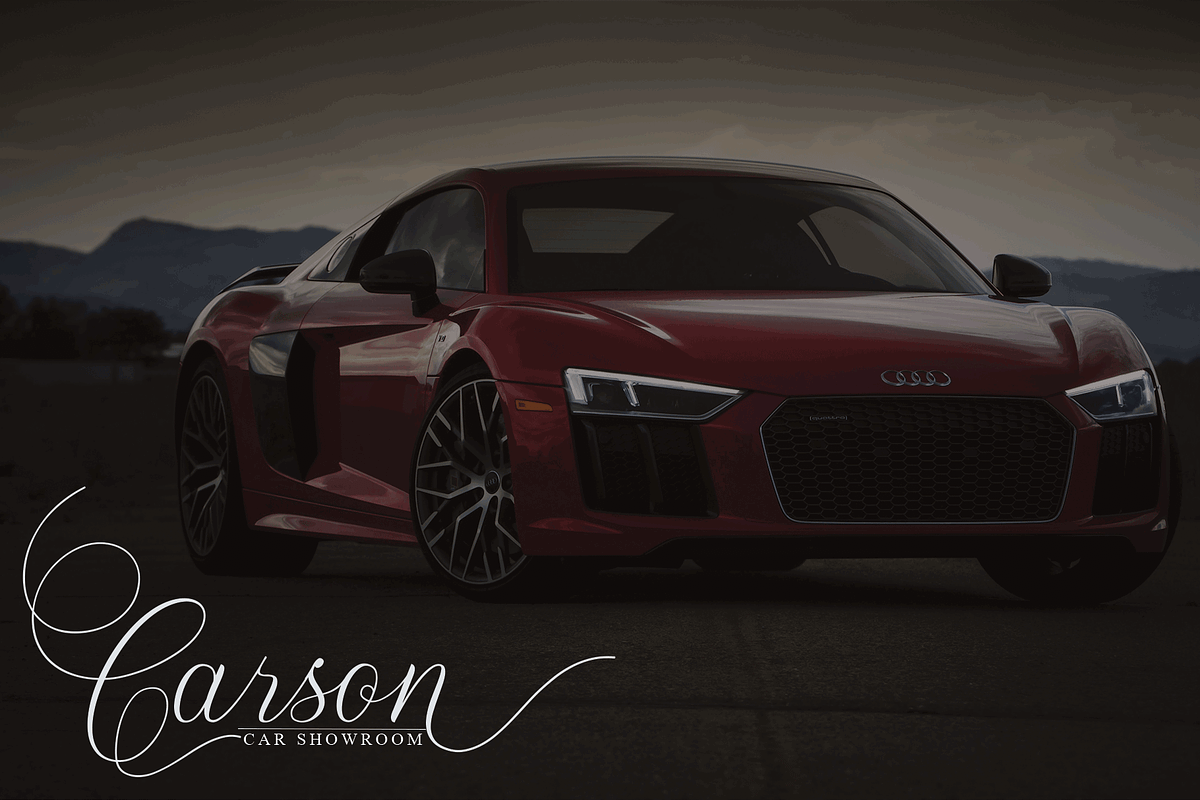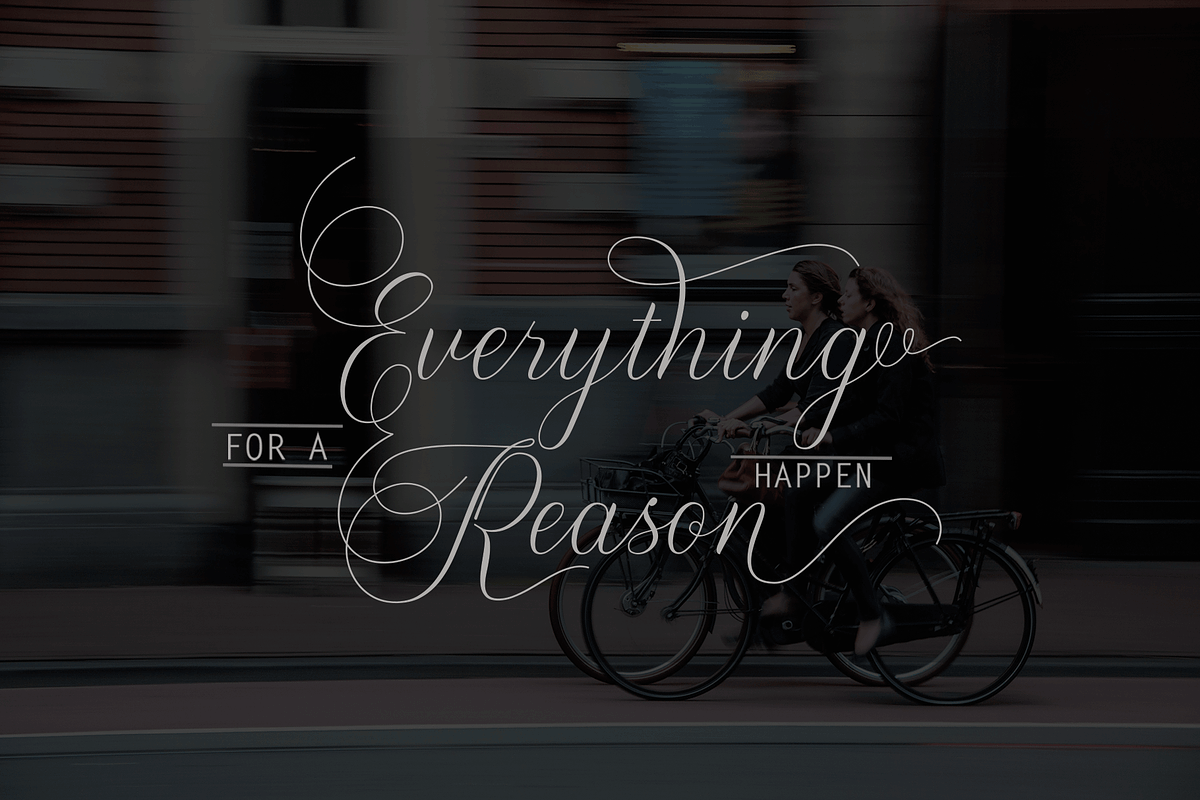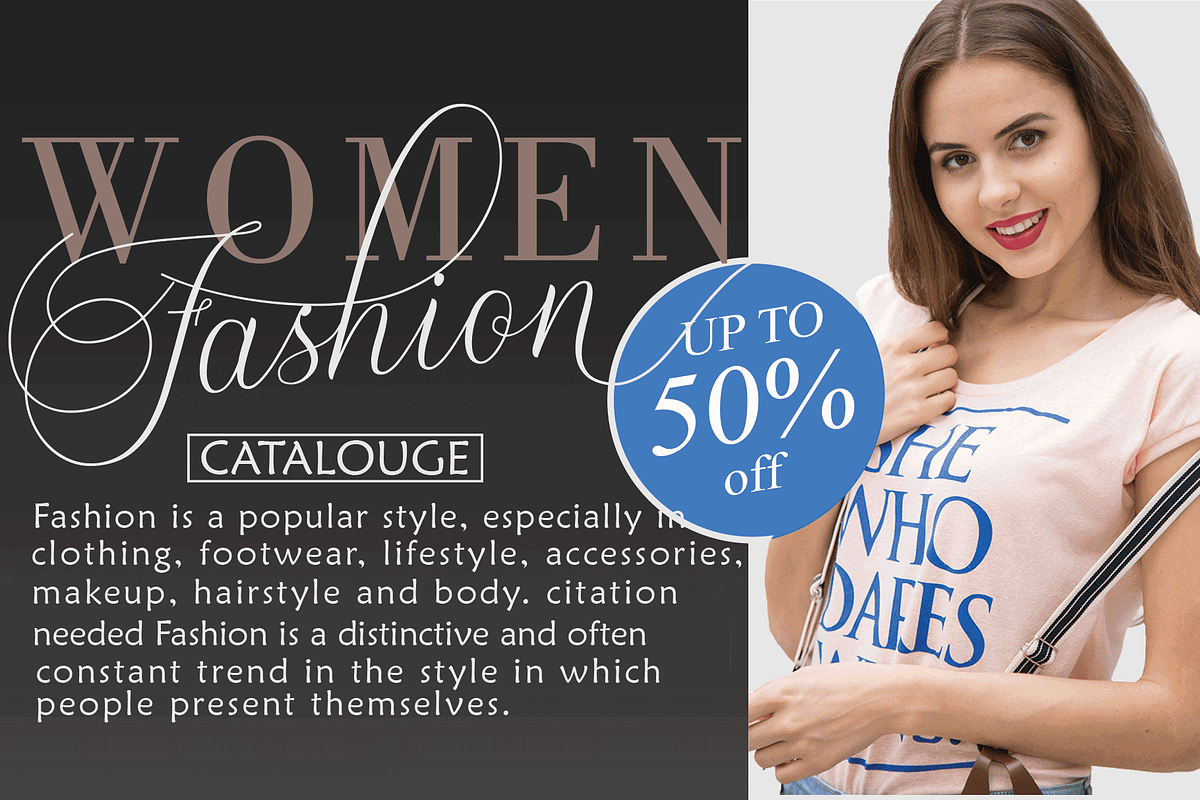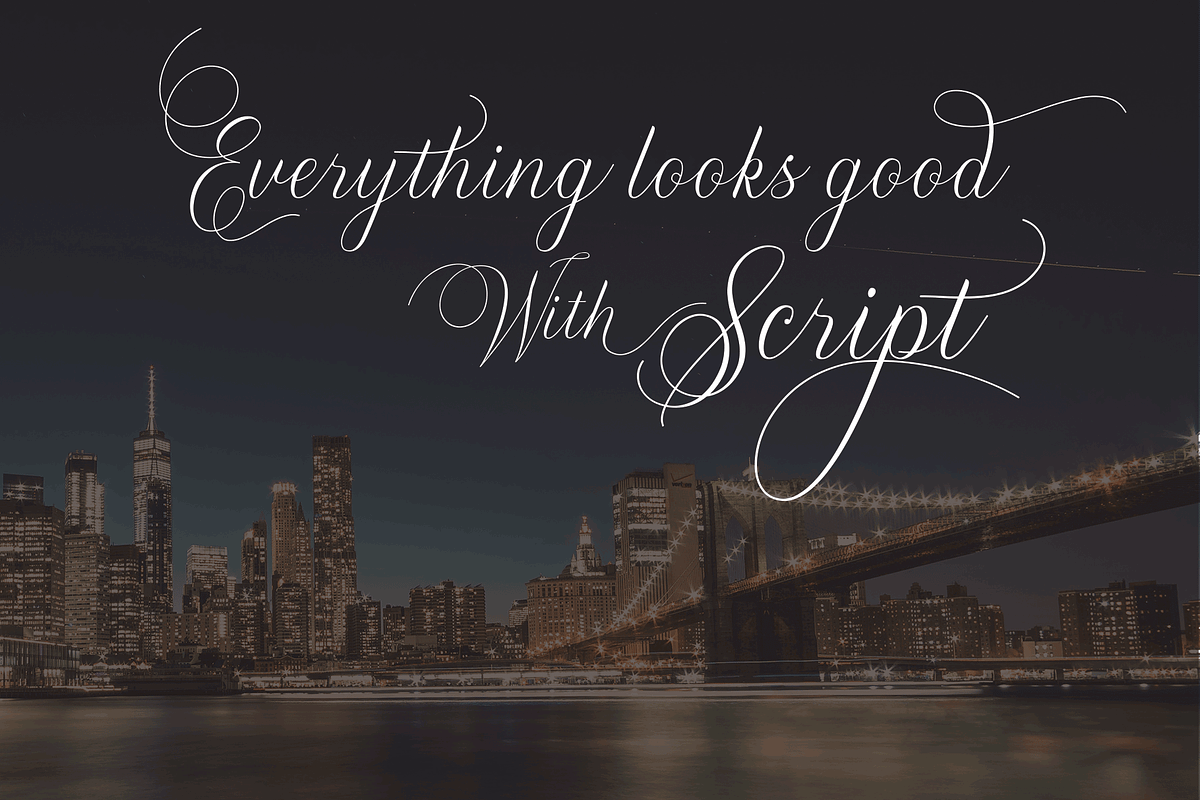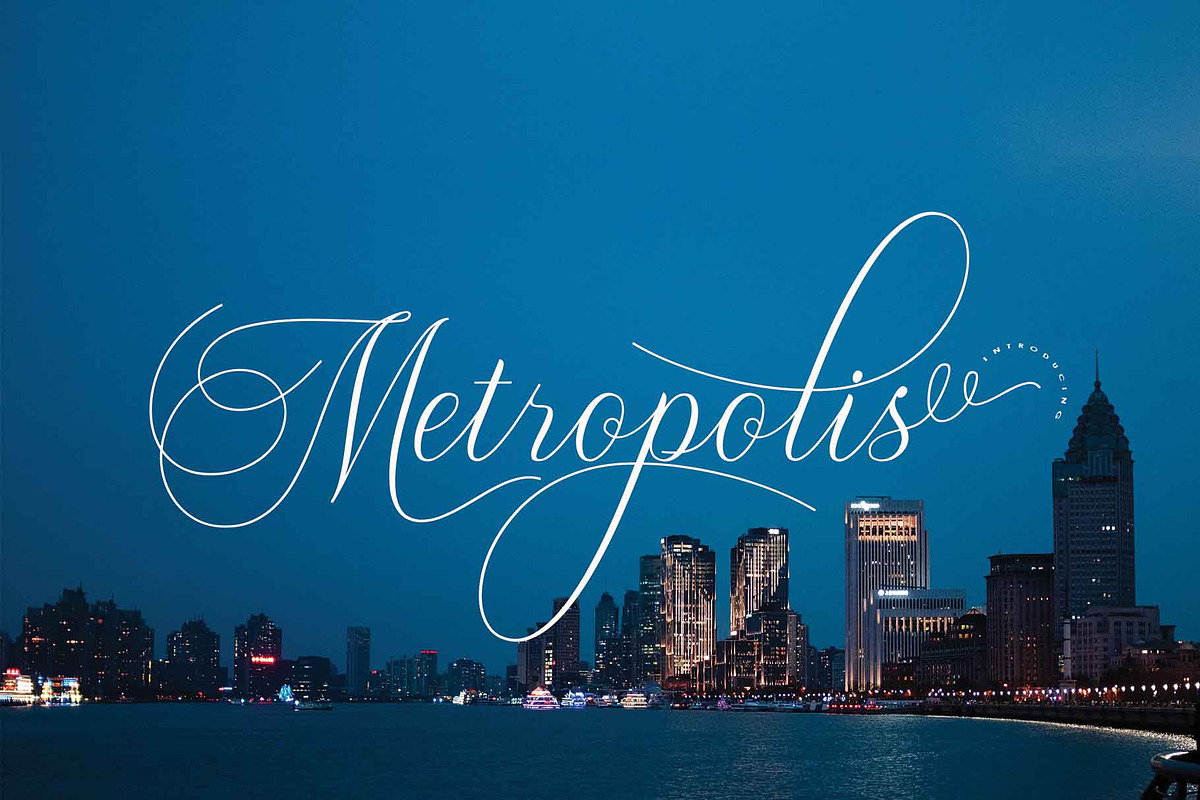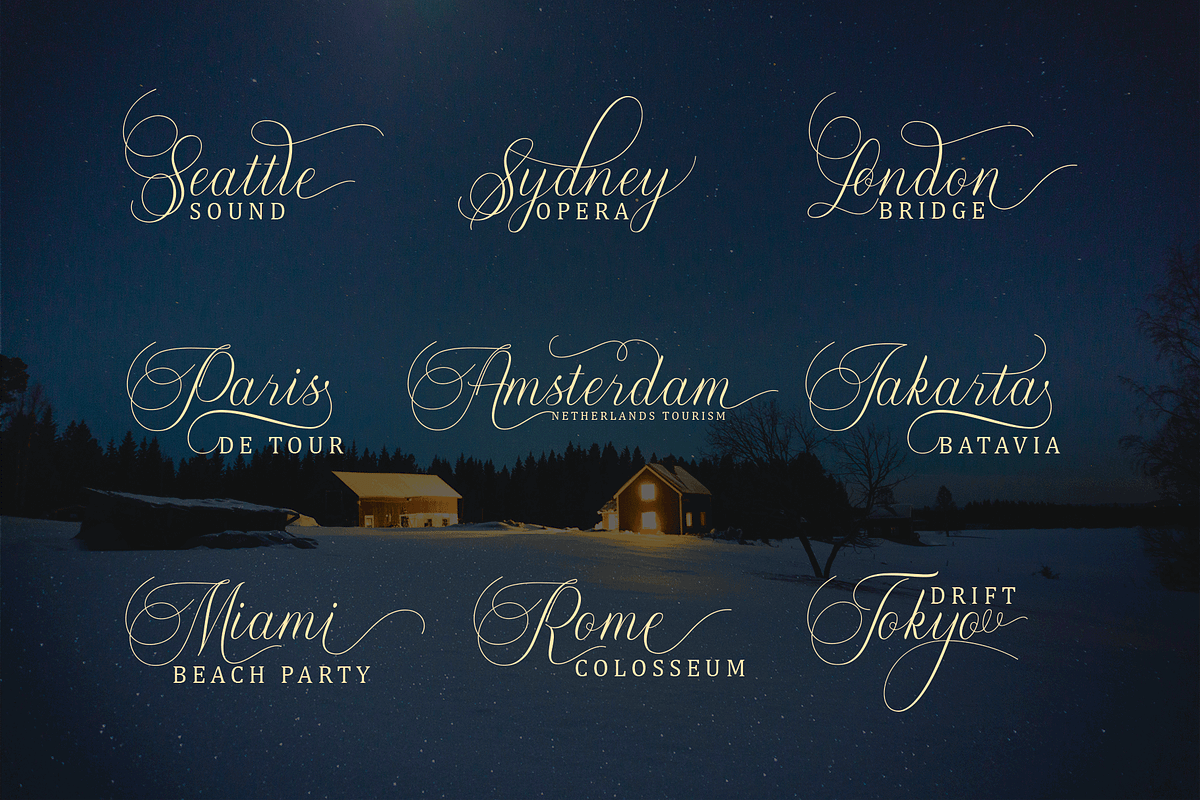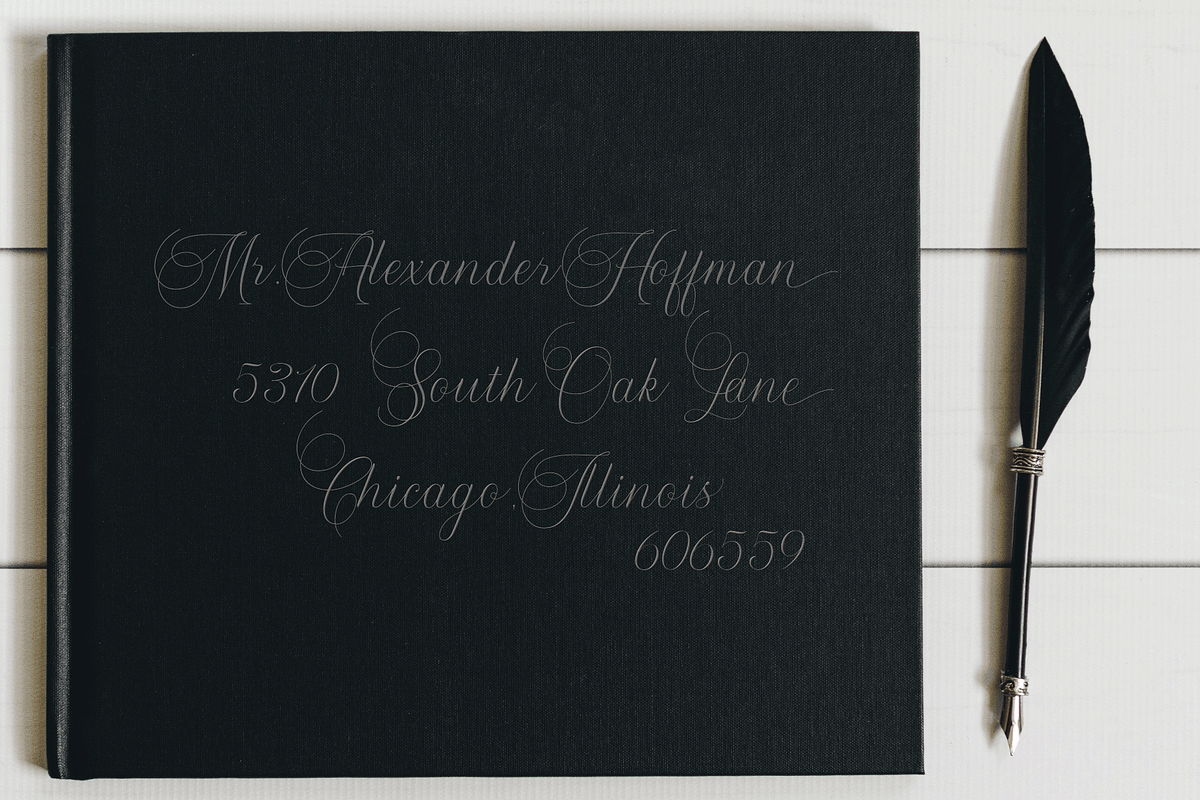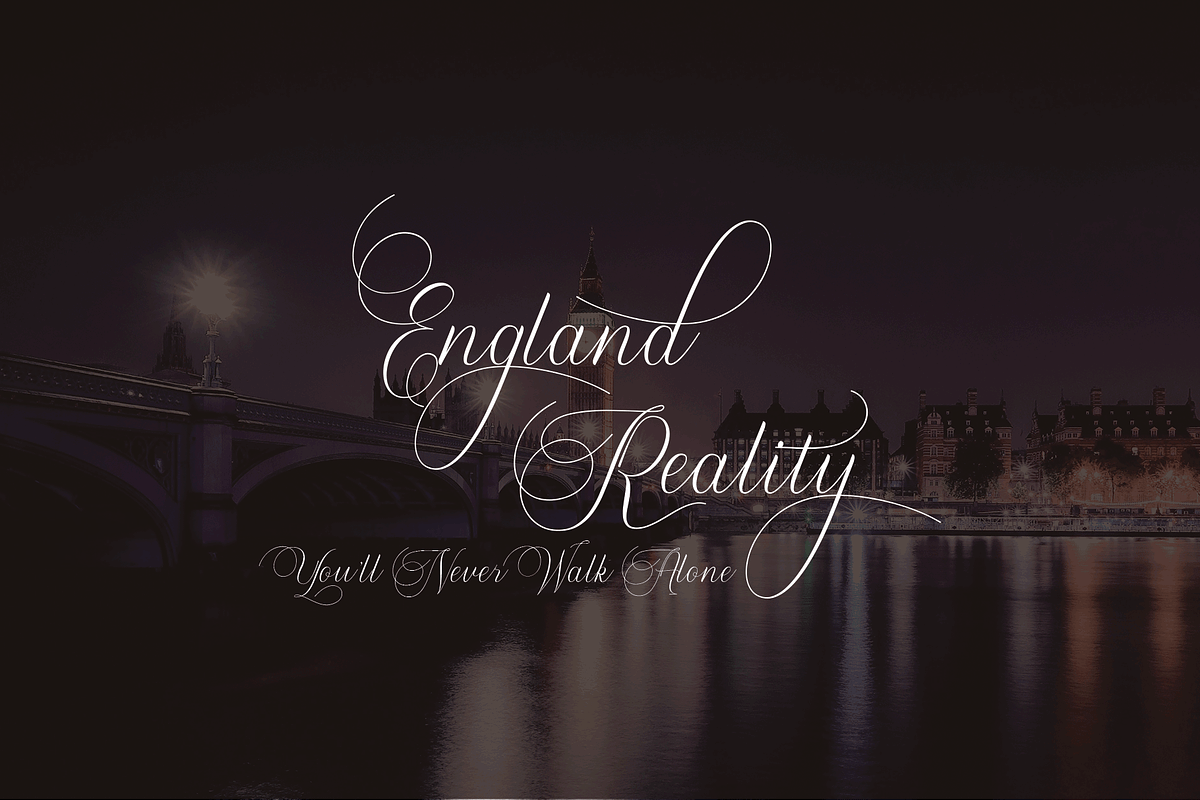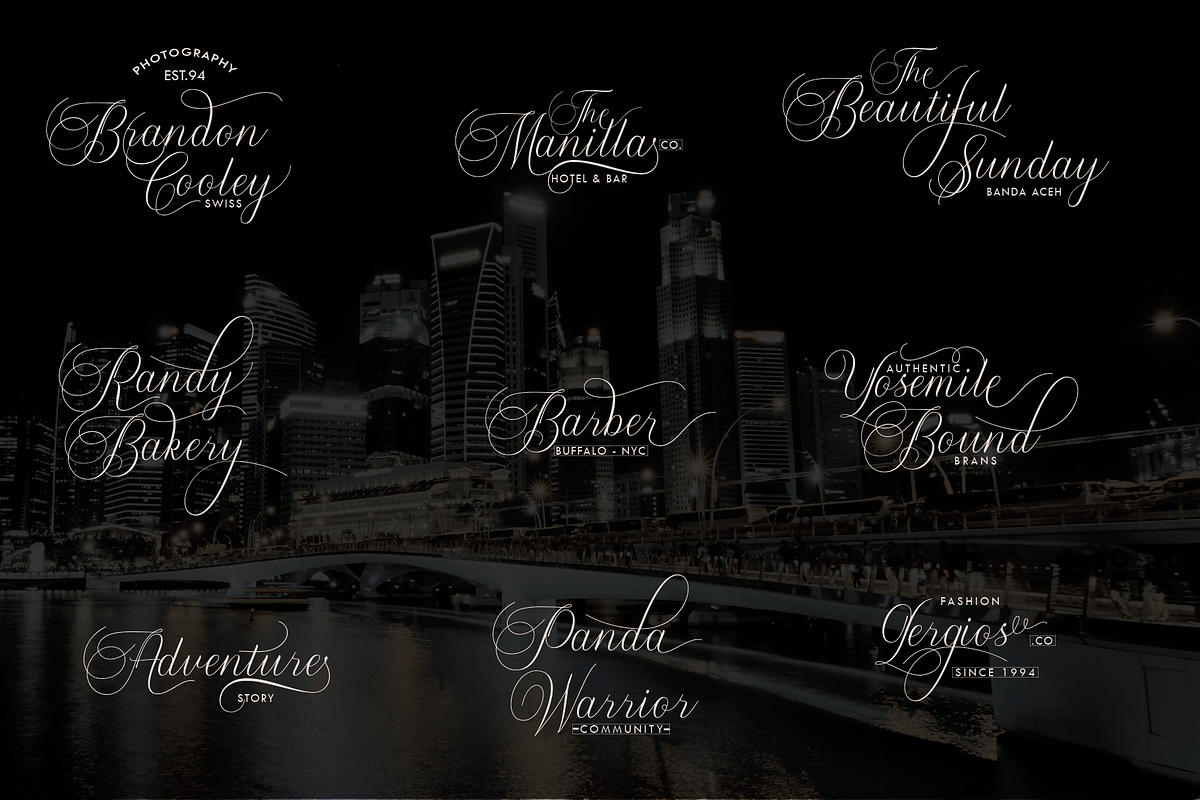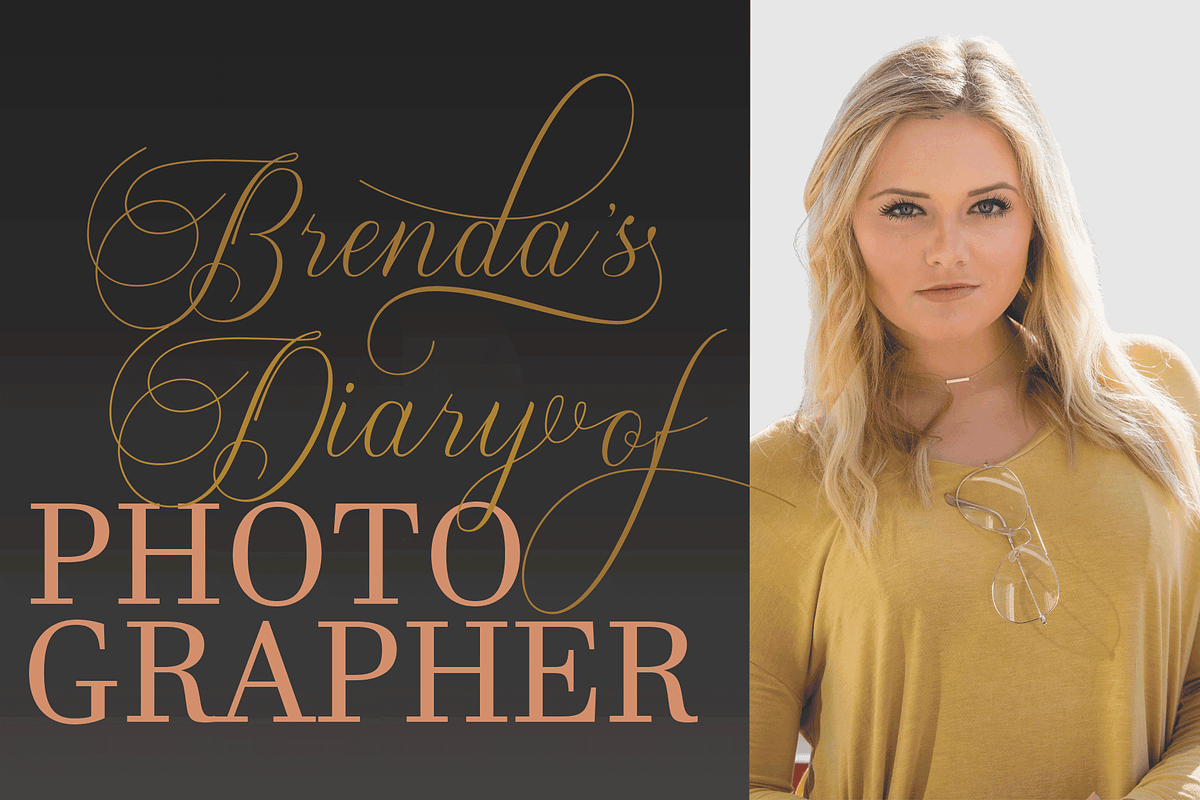
Metropolis
Metropolis is a beautiful modern calligraphy typography, which combines classic calligraphy style with modern style.
Metropolis is a beautiful and lightweight script font with extraordinary nuances. This will turn any design project into a standout!
combining from copper plates to contemporary typeface with a dancing base line, a modern and elegant touch. Metropolis displays 1186 flying machines and includes alternative characters. including beginning and ending letters, alternatives, binder and multi-language support. The features of this font are;
Standard ties
Discretionary ties
Alternative Swash
Alternative Style
Set the style